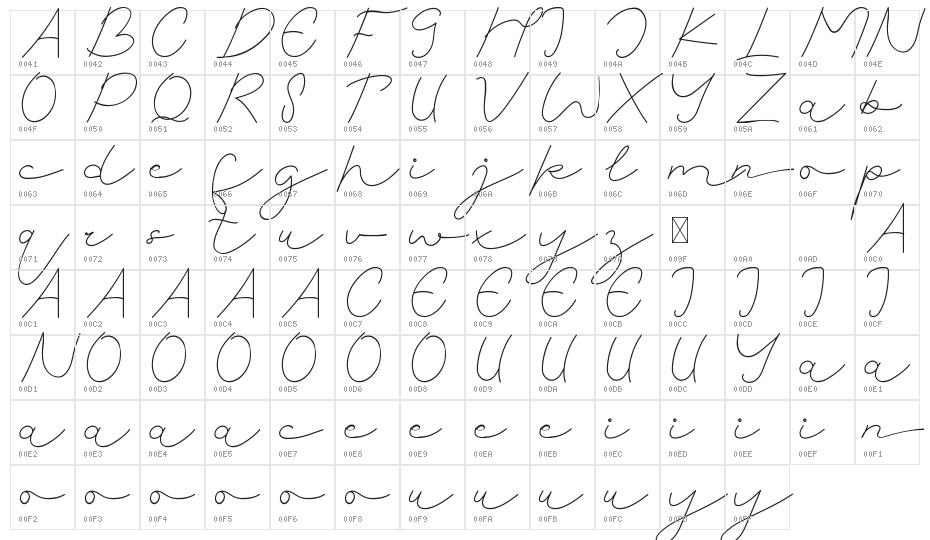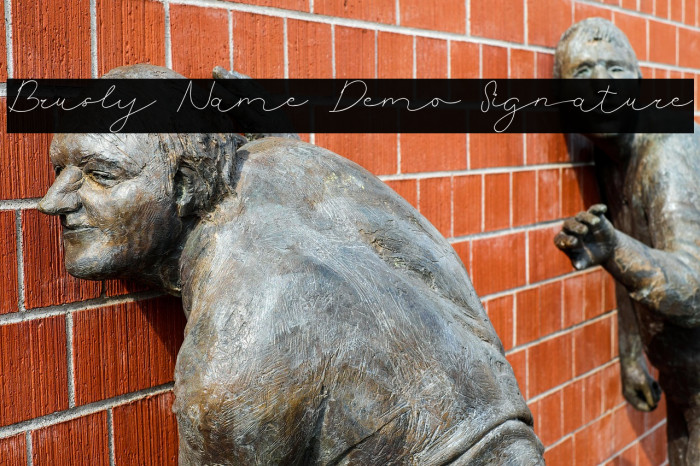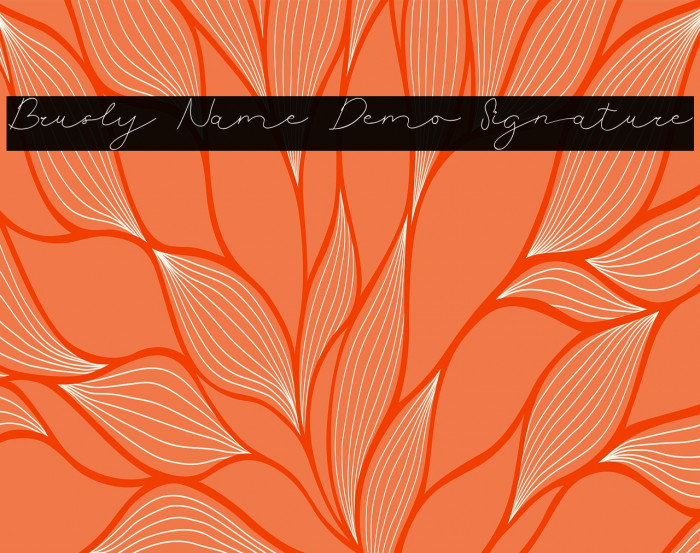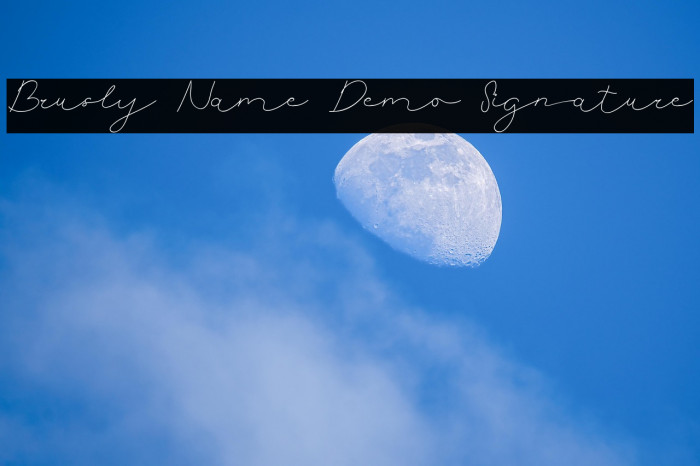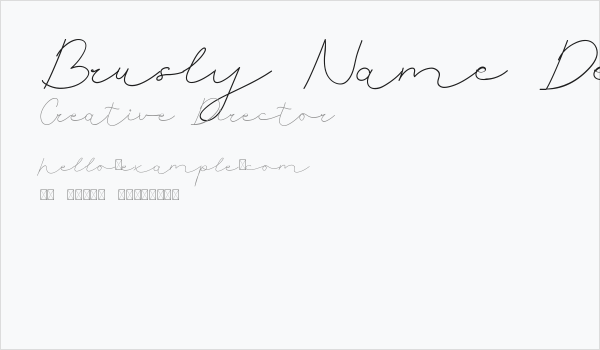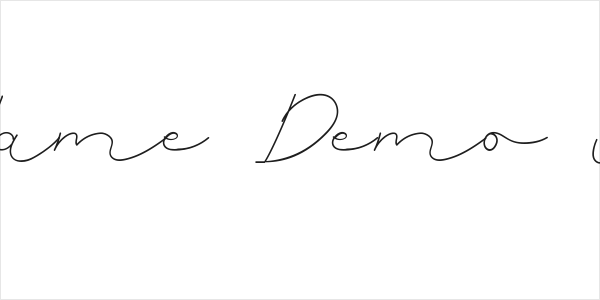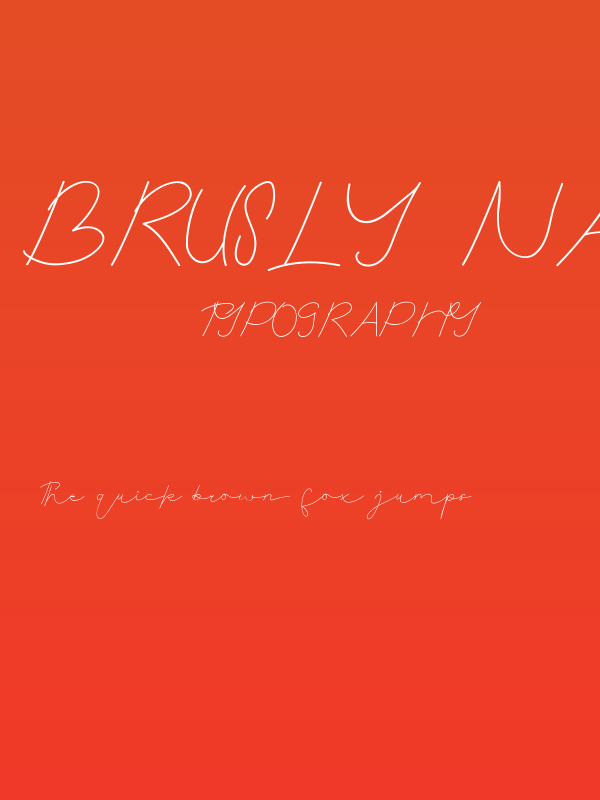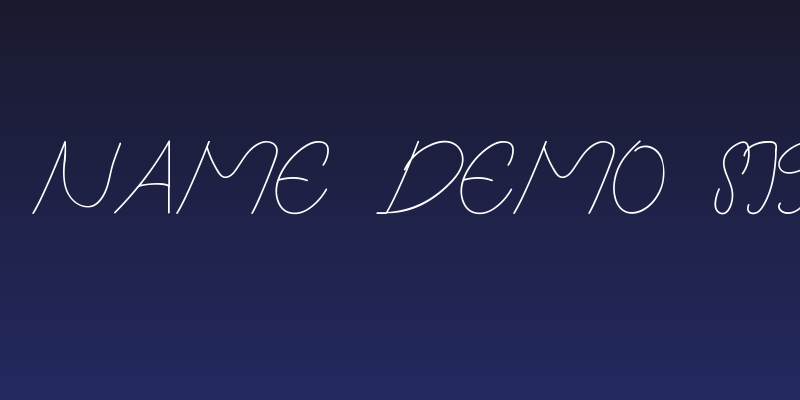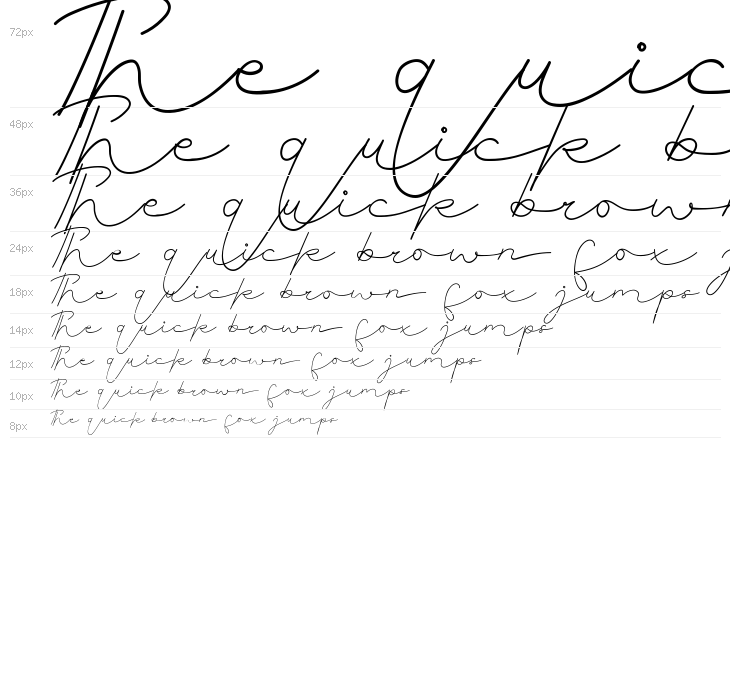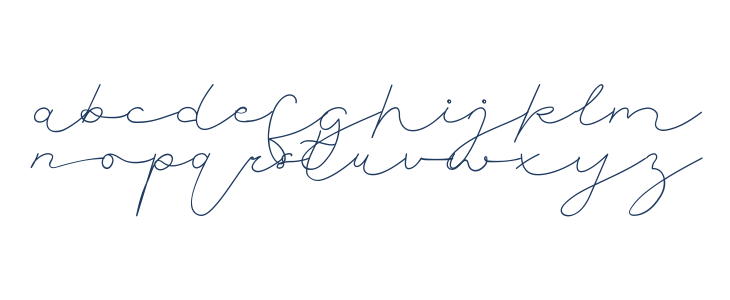
Brusly Name Demo Signature Font
Brusly Name Demo Signature Description
This font features a delicate, flowing script style that mimics the fluidity of a handwritten signature. The characters are elegantly connected, with smooth curves and a light touch that gives it a personal and artistic feel. The uppercase letters maintain a consistent height, while the lowercase letters exhibit a graceful slant, enhancing the overall aesthetic. The thin strokes and minimal contrast between thick and thin lines contribute to its airy and sophisticated appearance. This font is ideal for projects that require a personal touch, such as invitations, greeting cards, or branding materials that aim to convey elegance and individuality.
| Overall Style | Elegant, Artistic |